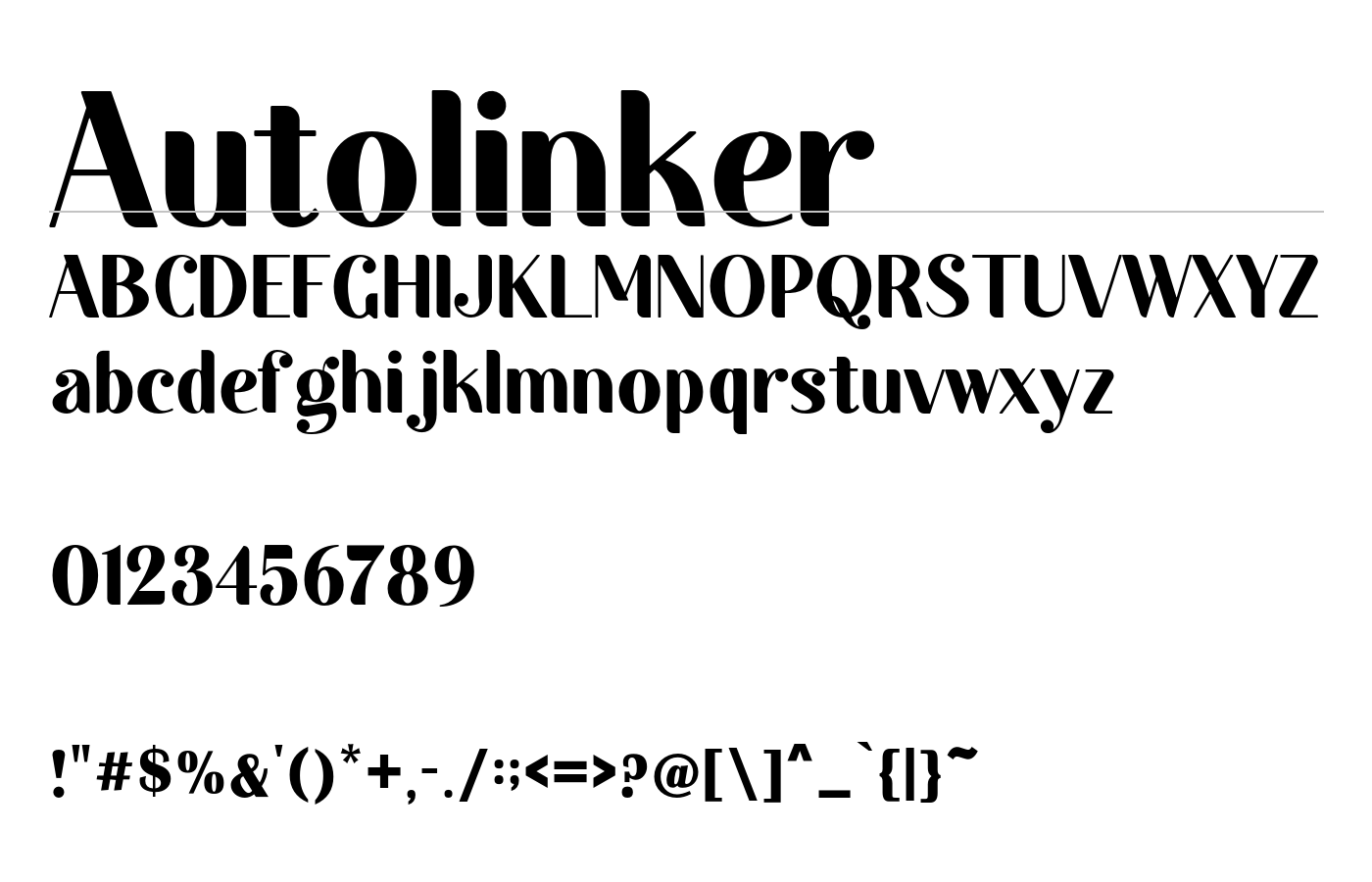
Autolinker is a bold, stylish serif font with a modern twist, featuring high contrast between thick and thin strokes and distinctive, playful details like curled terminals and sharp edges. Its tall x-height and condensed letterforms give it a strong presence, making it an excellent choice for eye-catching headlines, logos, and editorial design where sophistication meets creativity. This font blends elegance with a contemporary flair, perfect for fashion branding, posters, and any project that needs a unique, confident voice.
Autolinker Font
About Autolinker Font
| Font family | Autolinker Font |
| Designer | 177Studio |